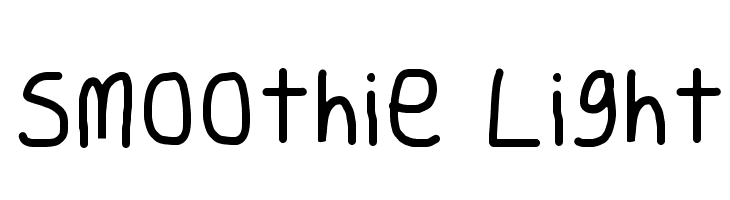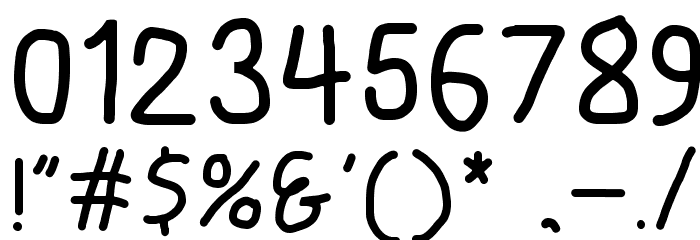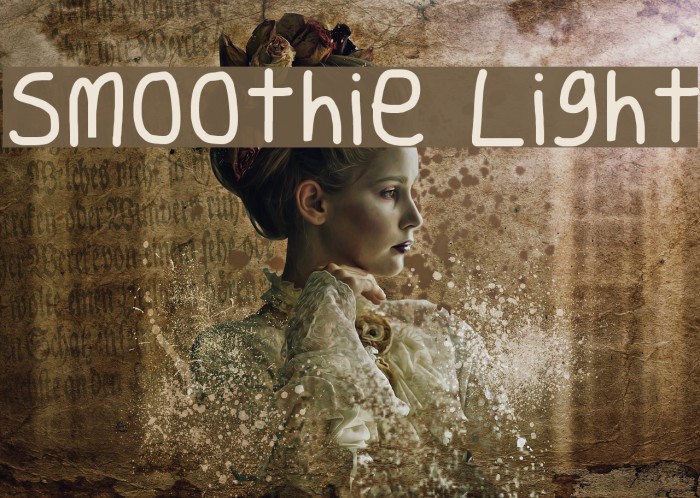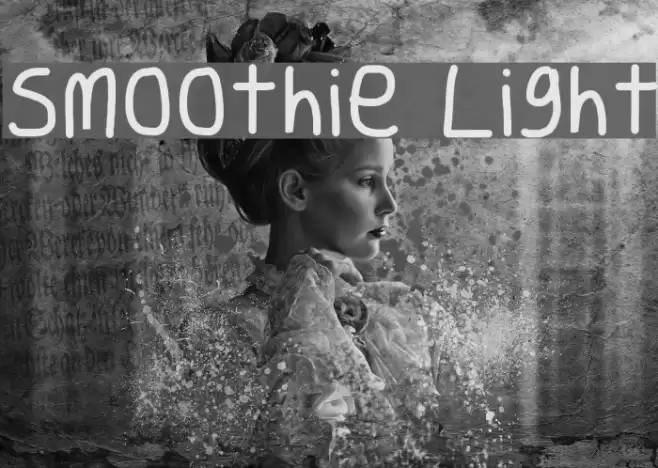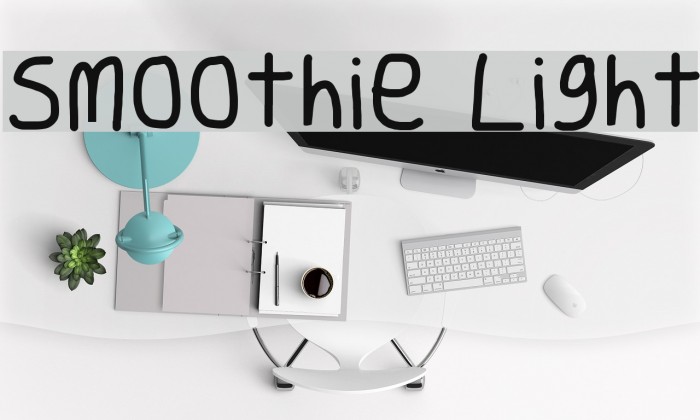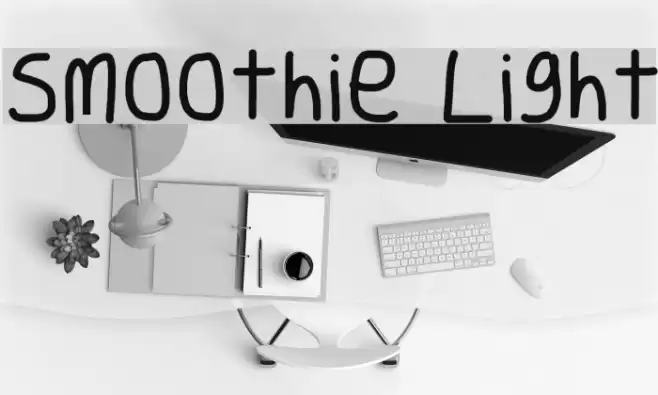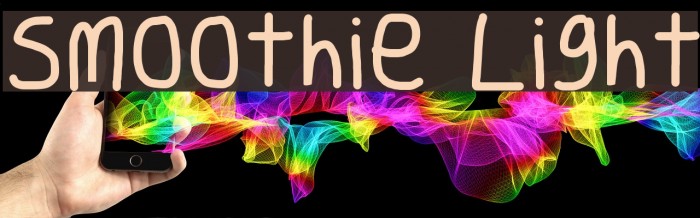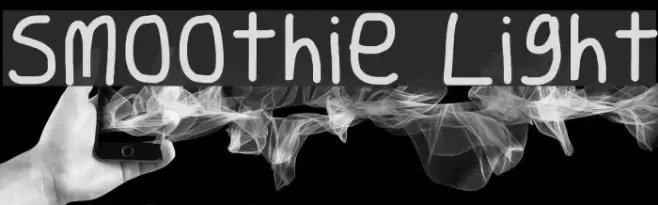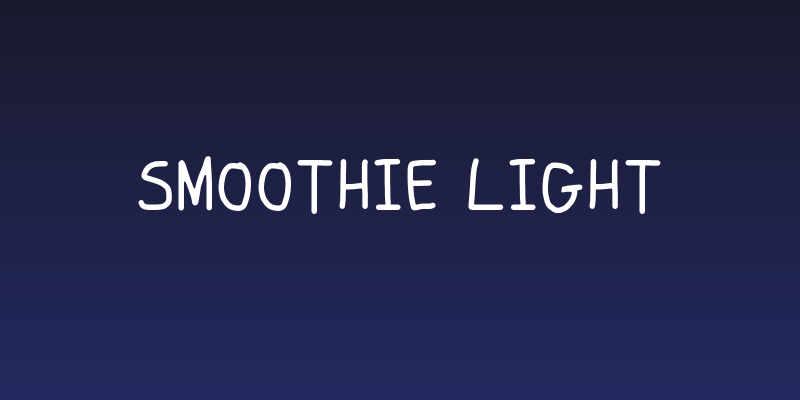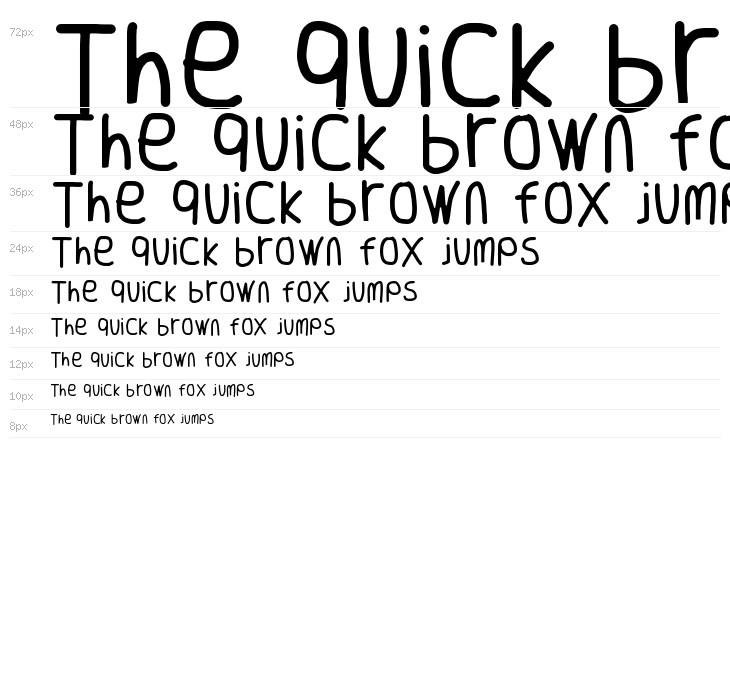
Smoothie Light Font
Smoothie Light Description
This font features a playful and casual handwritten style, characterized by its smooth and rounded letterforms. The strokes are consistent in width, giving it a uniform appearance that is both approachable and friendly. The uppercase and lowercase letters maintain a harmonious balance, with slightly exaggerated curves that add to its whimsical charm. The numerals and special characters are designed to match the overall aesthetic, ensuring a cohesive look across all text. This font is perfect for projects that require a personal touch, such as invitations, greeting cards, or children's book illustrations.